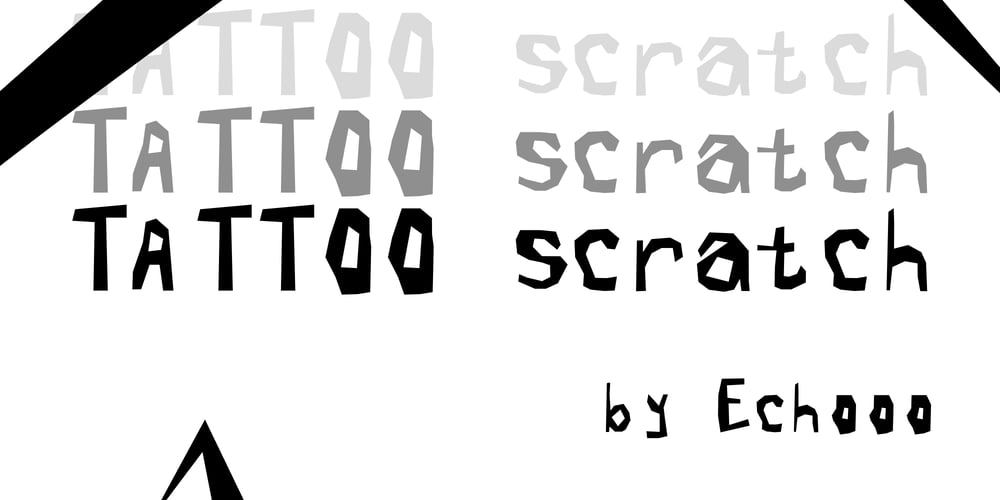
Tattoo Scratch
Tattoo Scratch font
Tattoo Scratch Font Family was designed by Kole Cook and published by Ech000. Tattoo Scratch contains 1 styles and family package options. Tattoo scratch is a carefully constructed abstract and artistic font made with over 190 different glyphs for latin and extended latin usage. Useable in English and latin based languages.The font is inspired by ignorant tattoo style art and by the “chicken scratch” style of hand writing. Each letter is individually crafted to make the font overall highly unique.